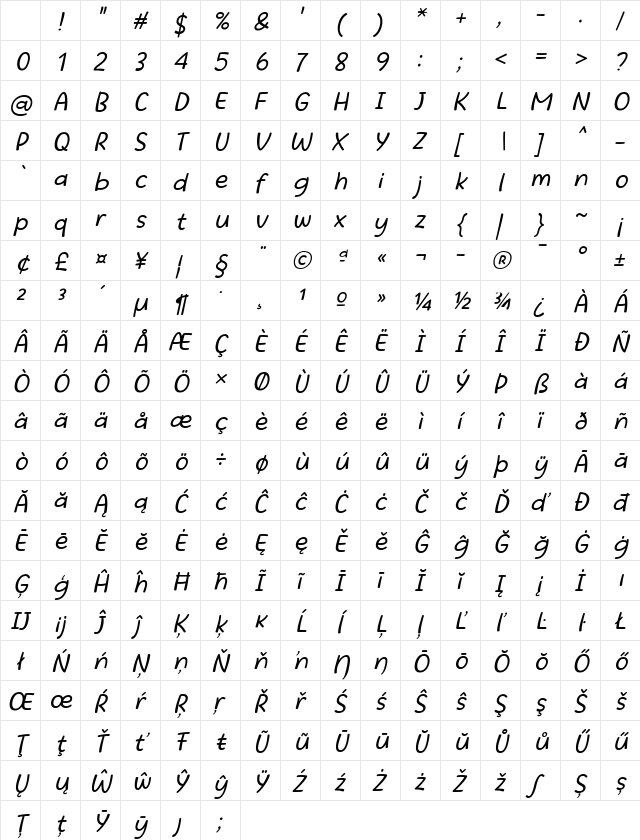
Complete Beatific Margella Italic glyph index. Displaying only characters natively supported by Beatific Margella Italic font.
Beatific Margella is a composed and adaptable typeface that performs quietly and consistently across a wide range of design contexts. The slanted form adds forward momentum and visual energy.
Pro Tip: Use Beatific Margella for emphasis, pull quotes, and subheadings where its slanted energy can add rhythm to the layout.